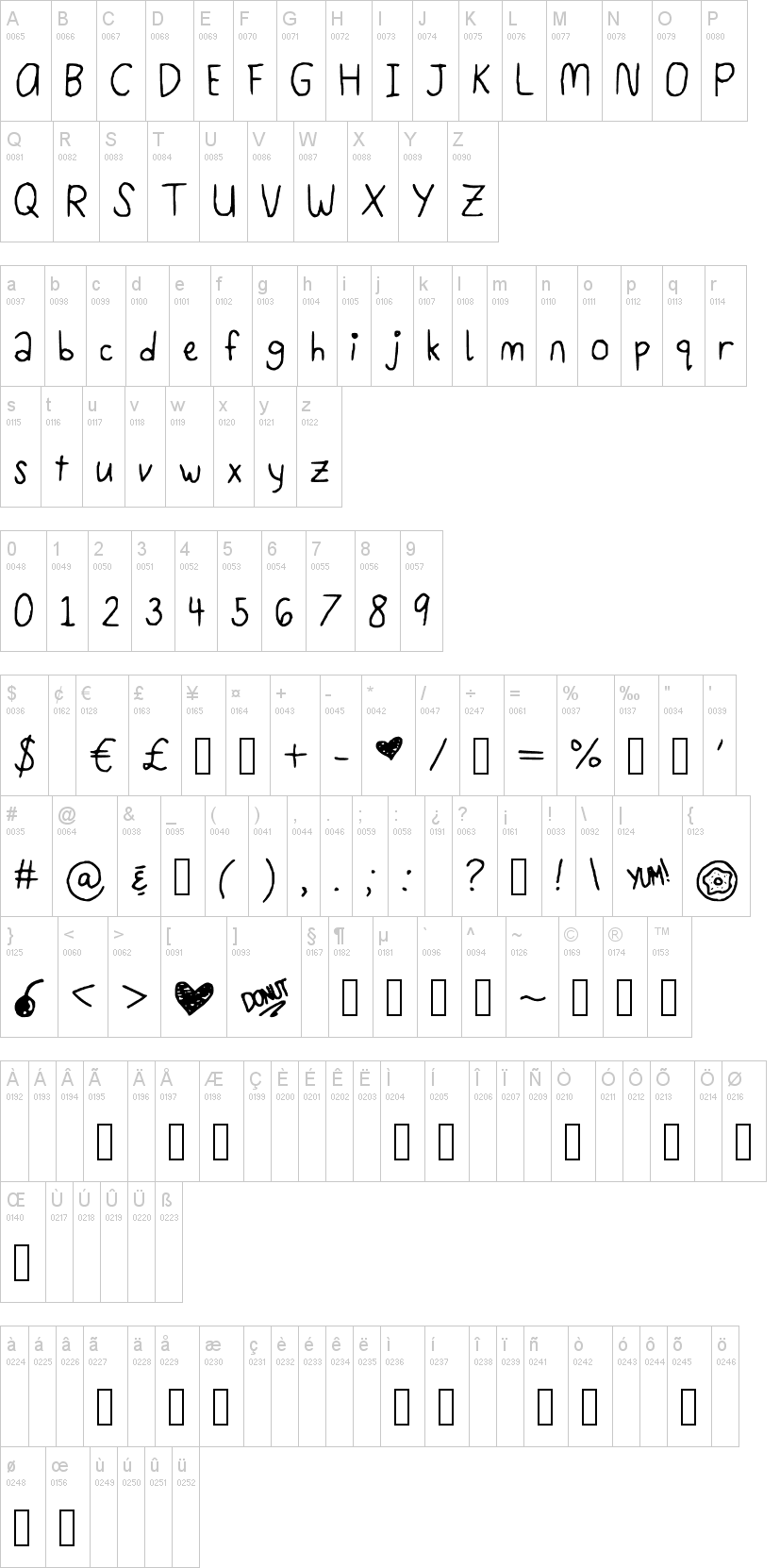
Note of the authorWeirdness rocks! Donuts rock too! This fuzzy font really screams the sugar and sprinkles out of your keyboard! It includes letters from A-Z and basic punctuation marks!